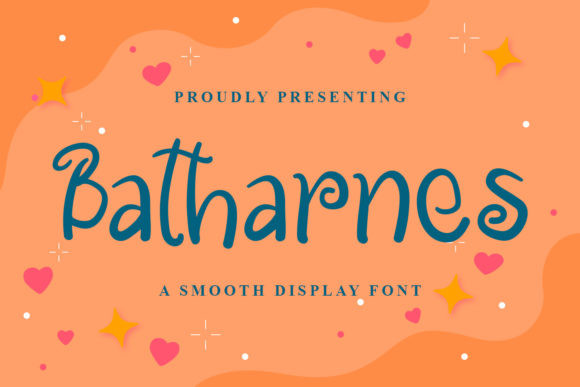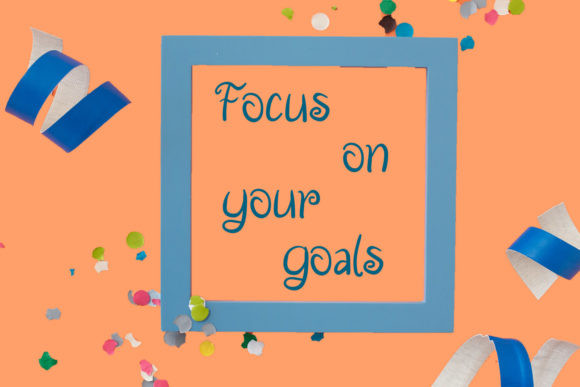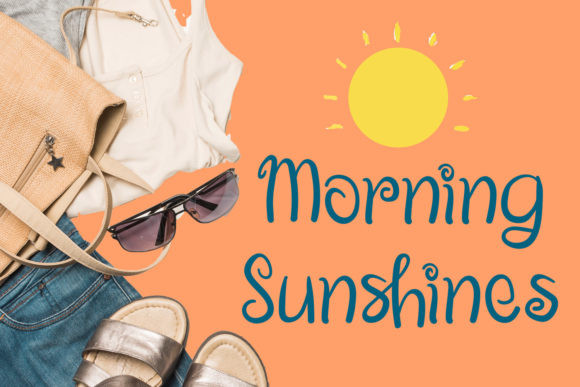
Batharnes Font
Batharnes is a cute and quirky display font. It will add an incredibly joyful touch to your designs. Add this beautiful display font to each of your creative ideas and notice how it makes them stand out!